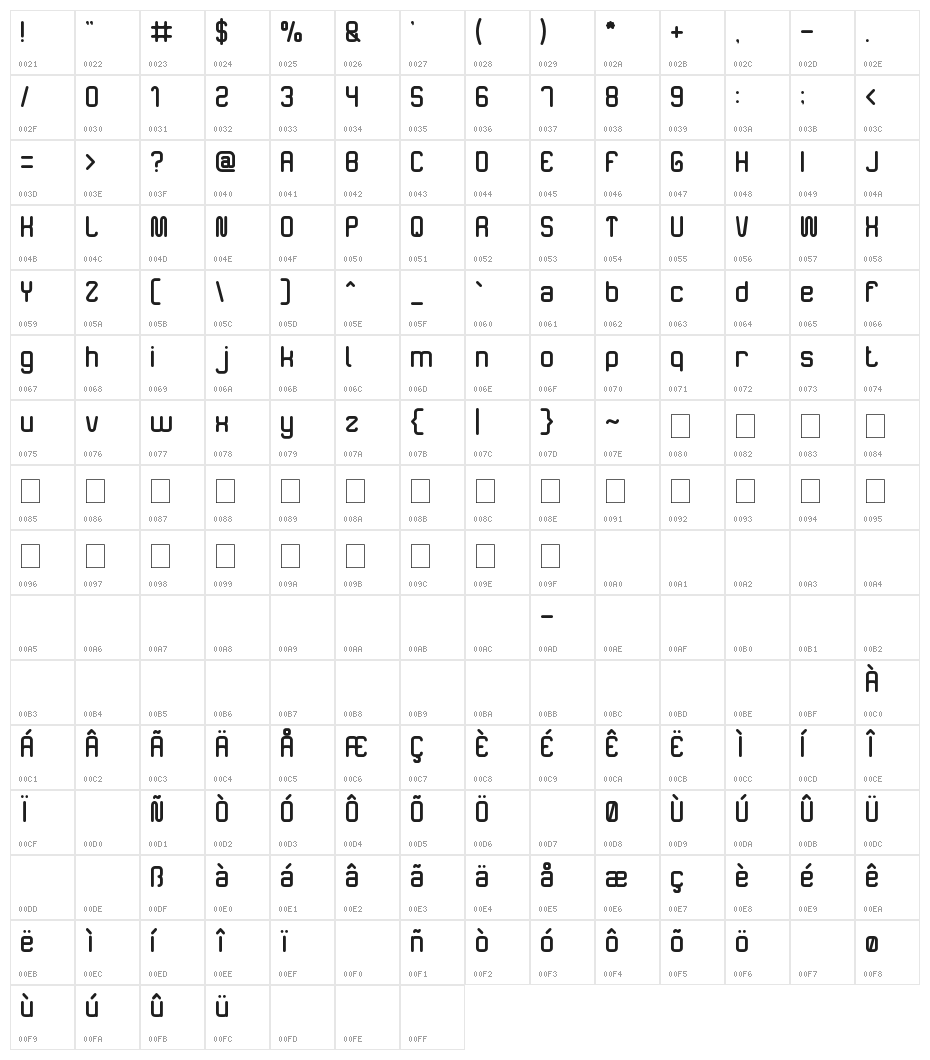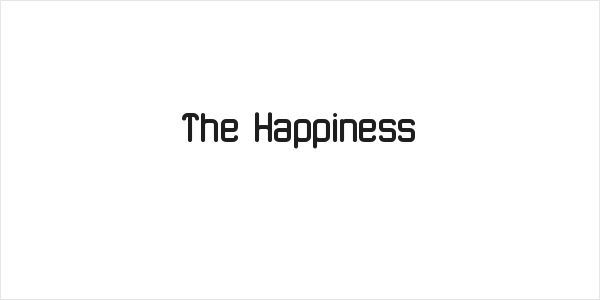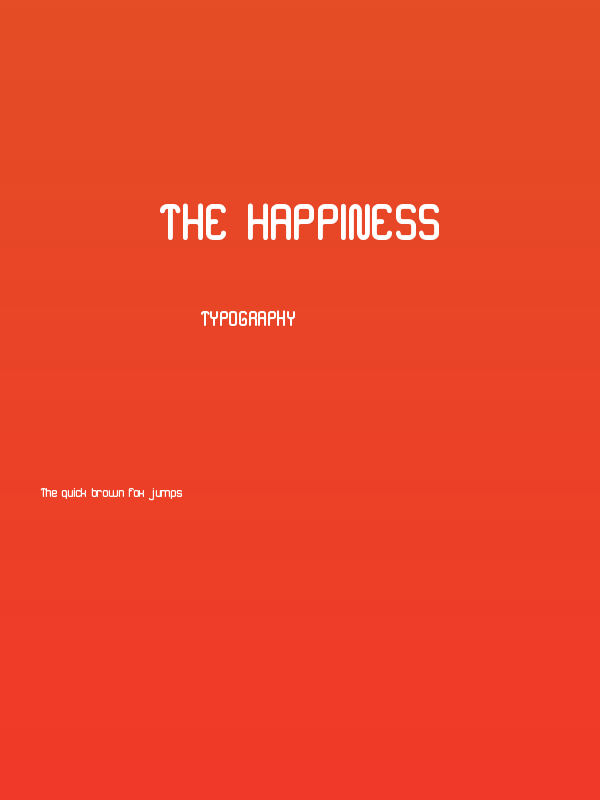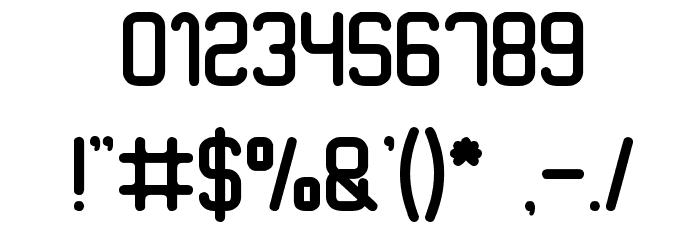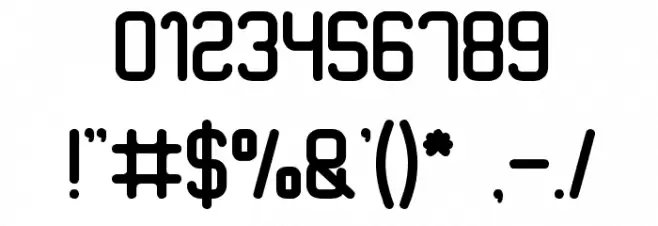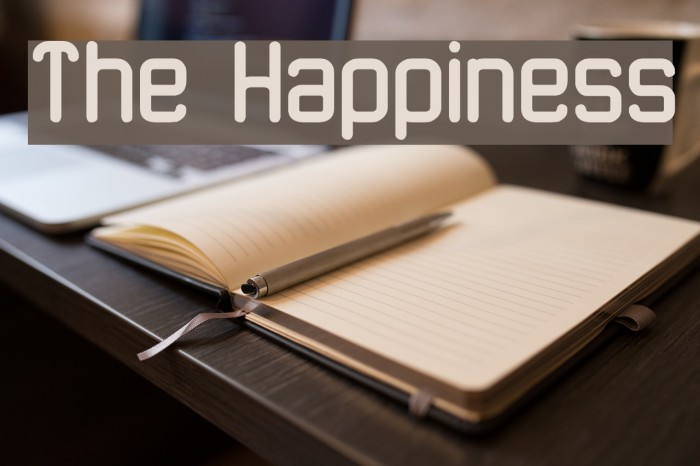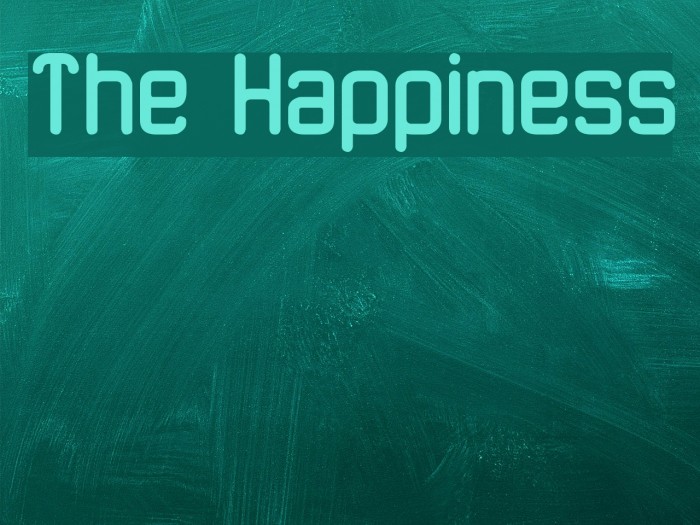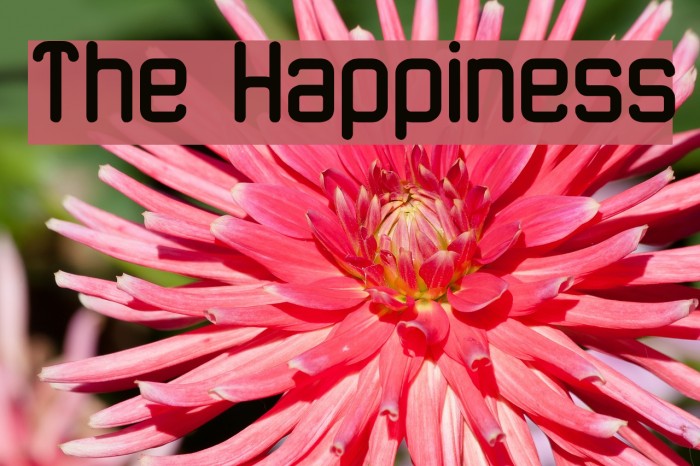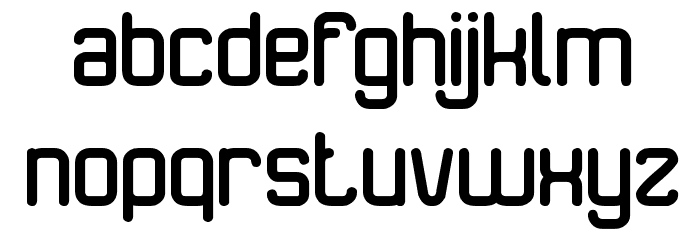
The Happiness Font
The Happiness Description
This font features a playful and rounded design, characterized by its smooth curves and uniform stroke width. The letters are evenly spaced, providing a clean and approachable appearance. The uppercase and lowercase letters maintain a consistent style, with rounded edges that give a friendly and modern feel. The numerals and special characters are designed to match the overall aesthetic, ensuring a cohesive look across all text elements. This font is versatile, suitable for a variety of design projects that require a touch of warmth and approachability.
| Use Case | Headlines, Logos, Casual Text |
| Proposed Projects | Ideal for children's books, playful branding, casual invitations, and friendly web design. |